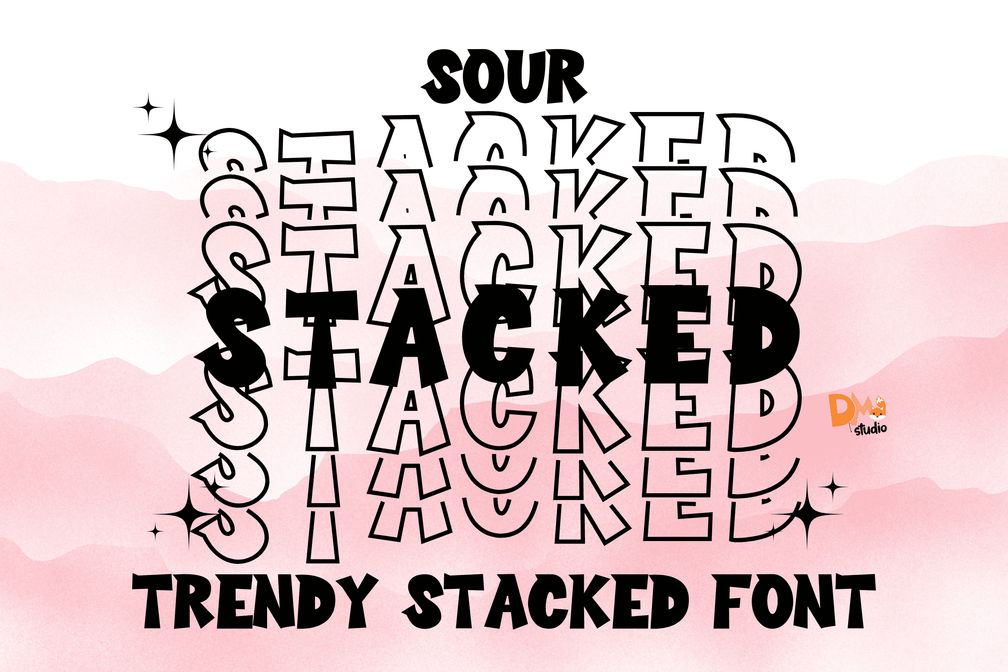
Sour Stacked Font
Sour Stacked Font is a quirky, bold, and playful typeface that takes stacked letterforms to a whole new level of fun. With its unique and sour-inspired personality, this font is perfect for creative projects that need a punch of attitude and energy. Whether you’re designing for branding, posters, kids’ projects, packaging, or social media, Sour Stacked Font will add a vibrant, layered aesthetic to your text. Its bold stacked design ensures your message grabs attention and leaves a lasting impression.
• Unique Stacked Letterforms: A fun, sour-inspired stacked design that stands out.
• Perfect for Playful Designs: Great for posters, packaging, branding, social media, and more.
• Bold and Quirky Style: Adds personality and creativity to your projects.
• Multilingual Support: Includes a variety of characters to support different languages.
• Punctuation and Symbols: A complete set for all your design needs.